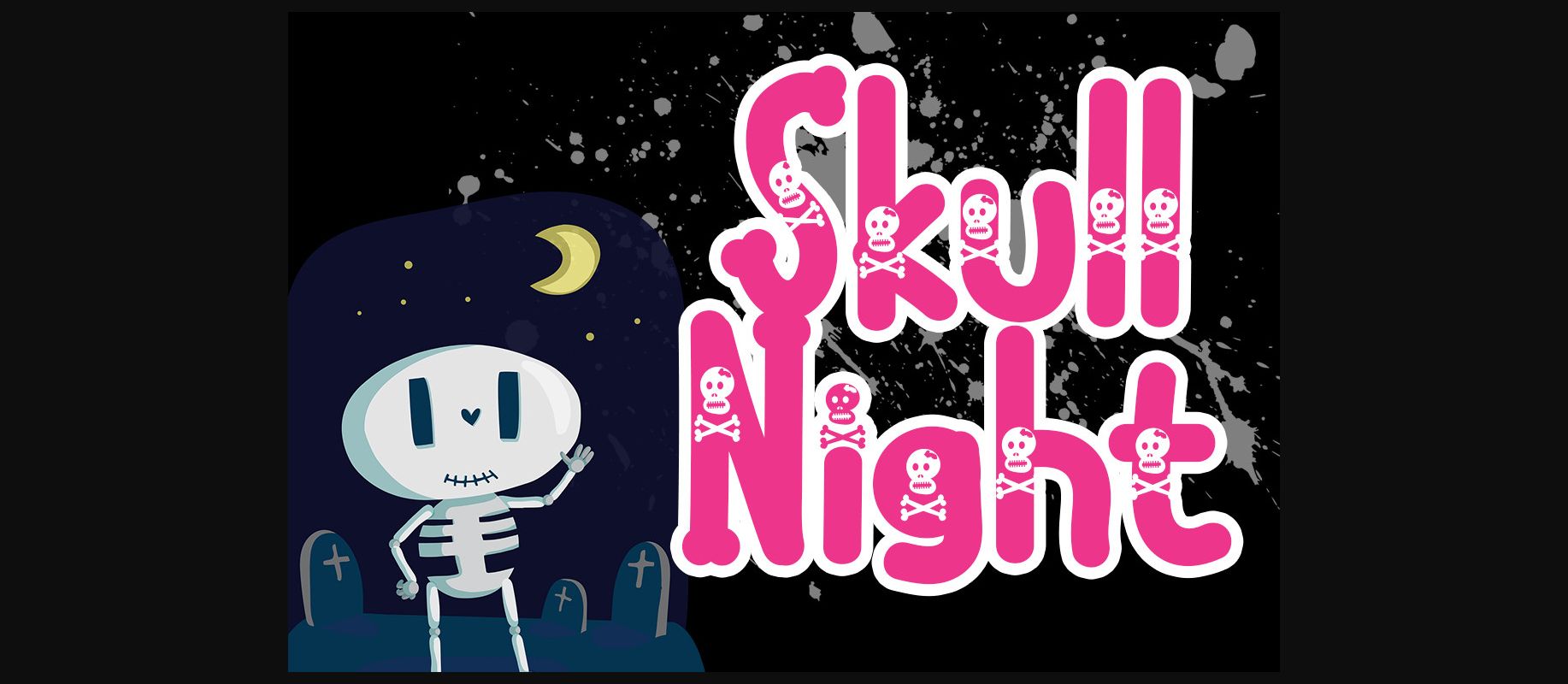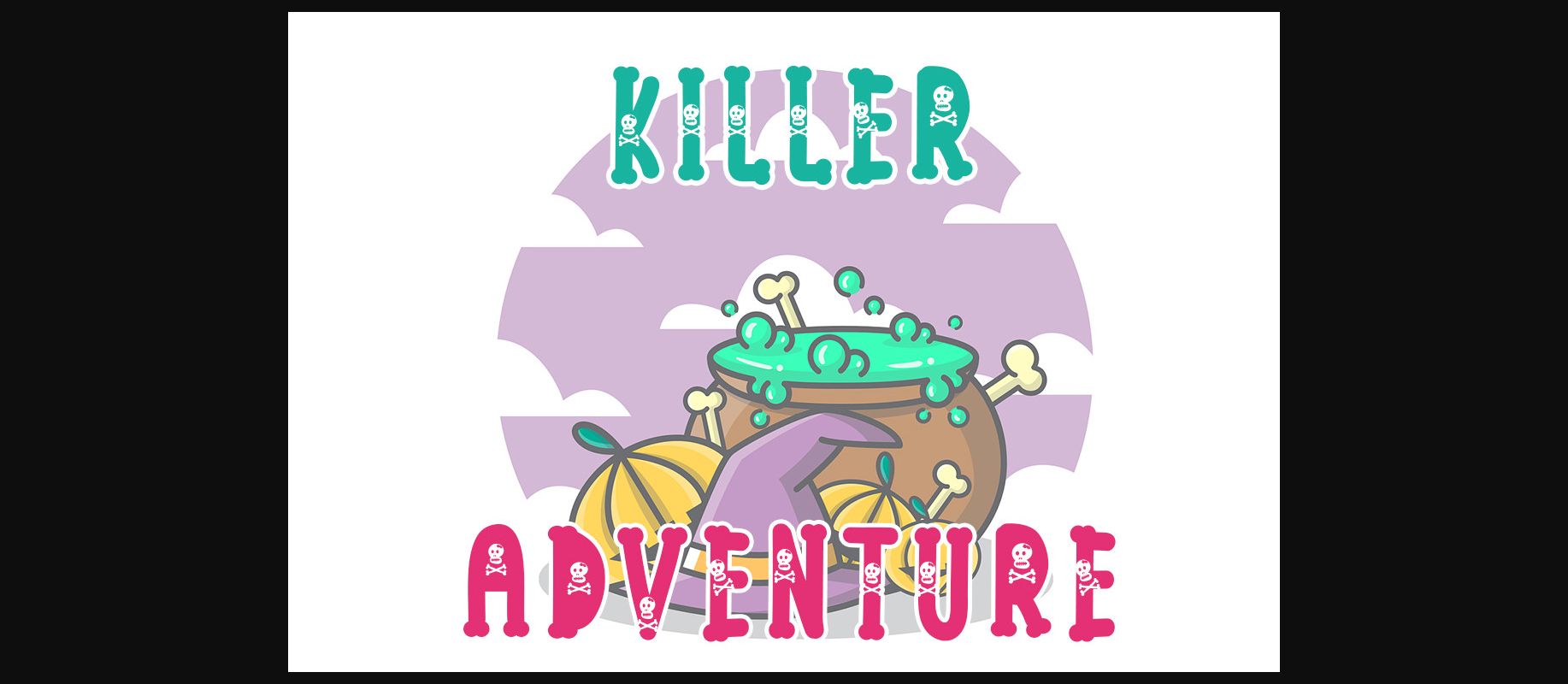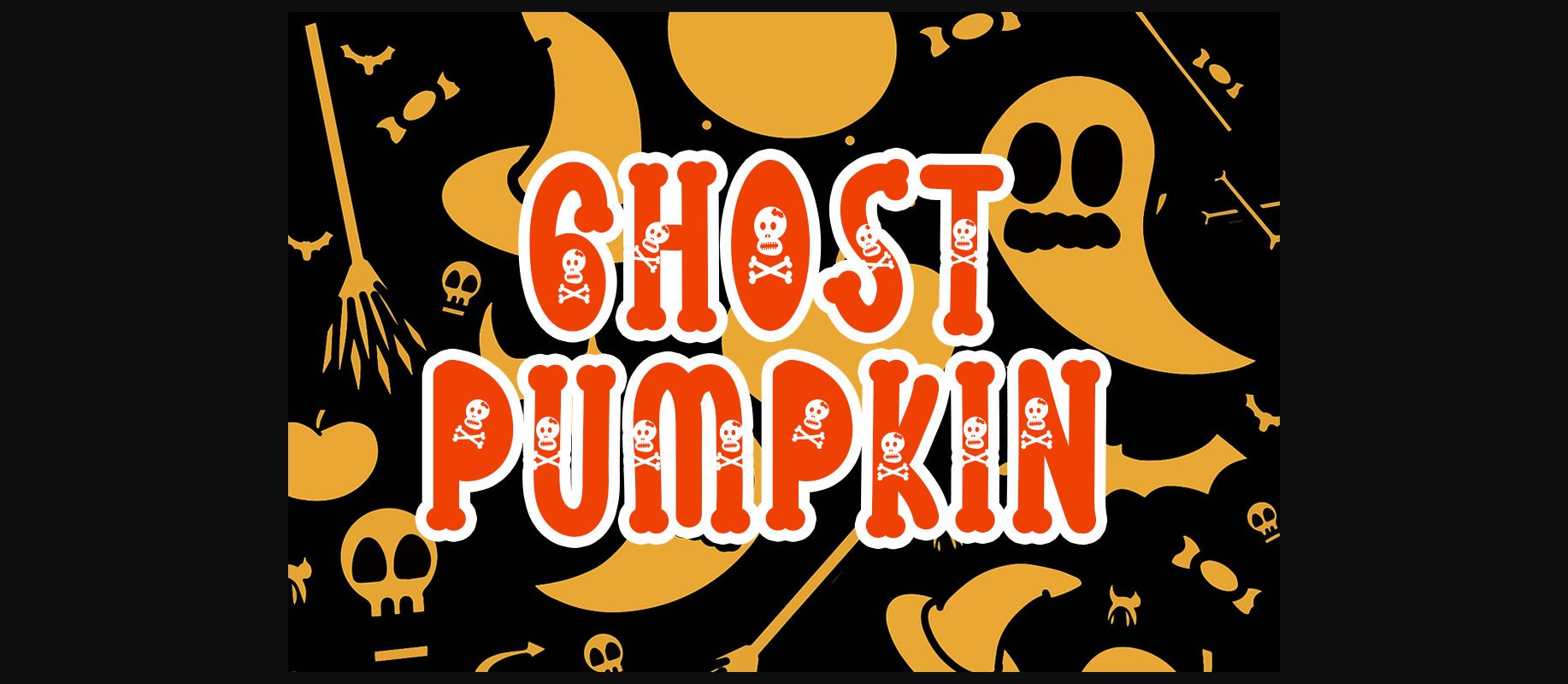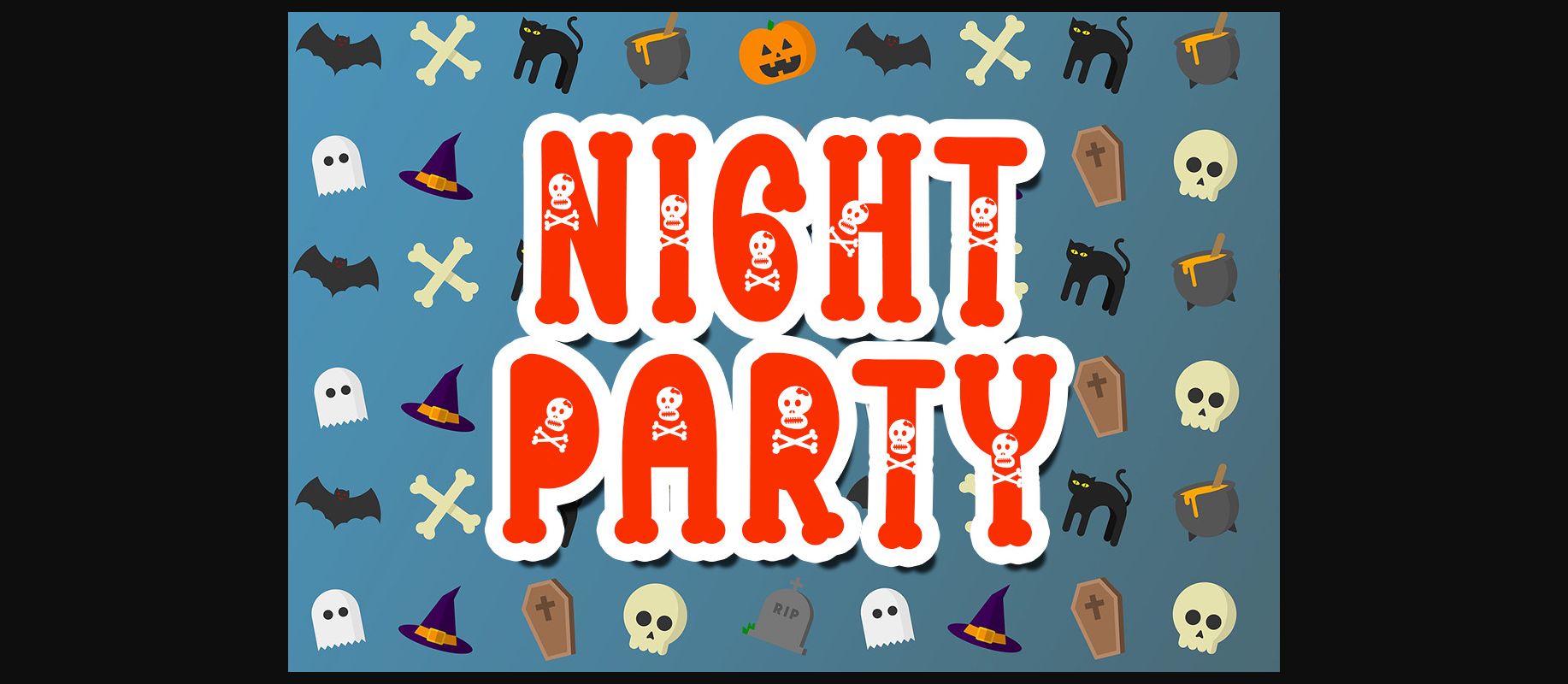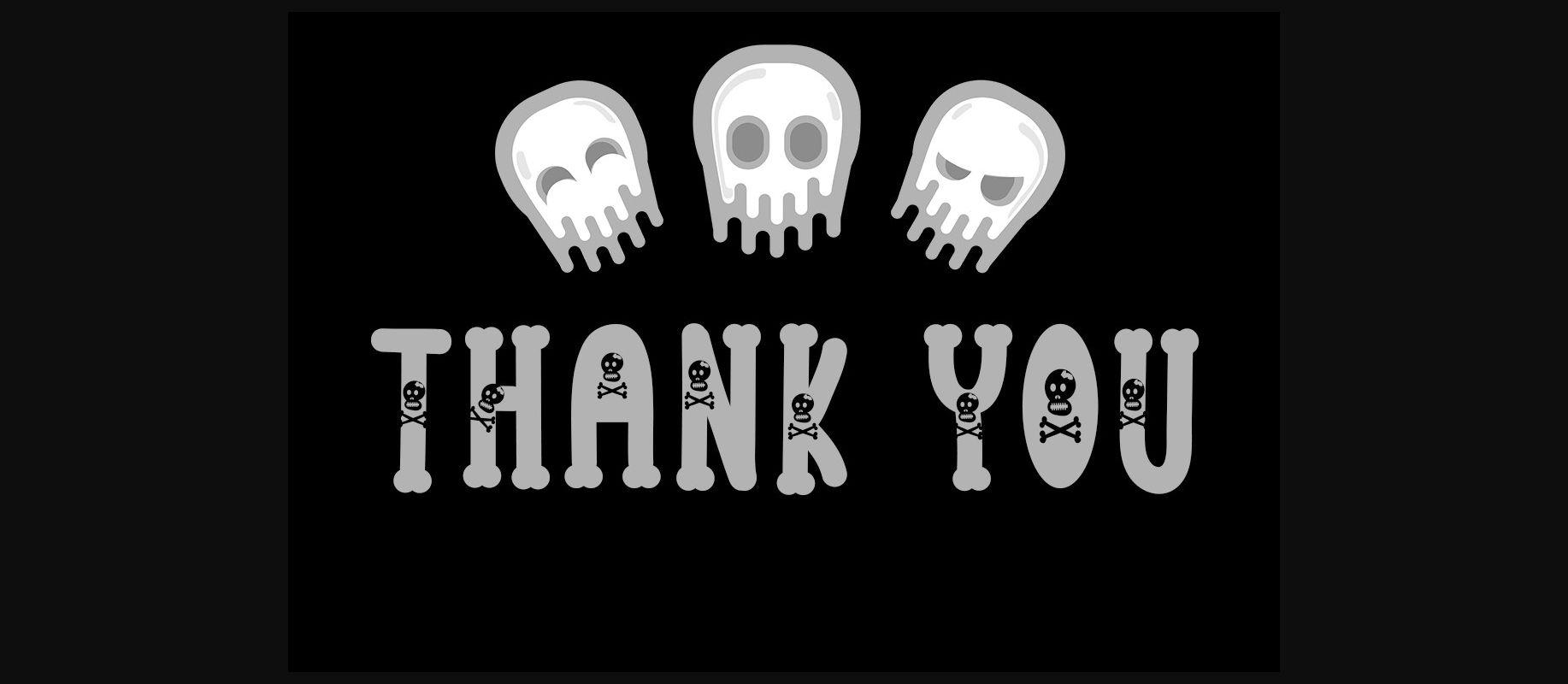
About Skull Night Font
Skull Night is a fun and bold decorative font featuring some lovely solemn letters and skulls on each character to increase the sinister vibe!